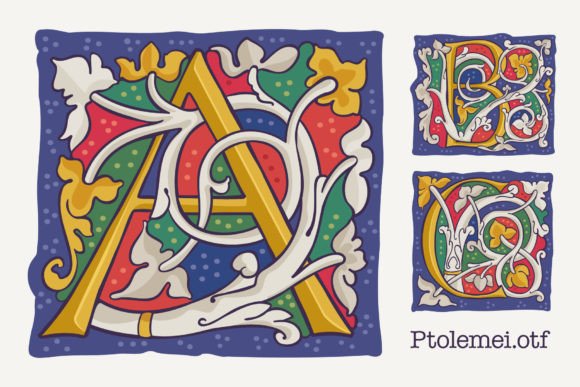
Journey into the realm of elegance and prestige with Ptolemei, a font family that echoes the grandeur of ancient times. Intricately crafted with ornate details, Ptolemei captures the essence of heritage, making it the perfect choice for your creative expressions.
Visualize your designs transformed into masterpieces, adorned with Ptolemei's classic charm. Its timeless beauty transcends the boundaries of time, adding a touch of sophistication and distinction to every project.
Unleash your creativity and let Ptolemei's intricate strokes elevate your monograms, logos, and designs to new heights. Embrace the artistry of this blackletter font and create visual wonders that leave a lasting impression.
With Ptolemei by your side, you'll discover a world of possibilities. Its versatility knows no bounds, effortlessly adapting to a myriad of design styles. Express your individuality and make a statement with Ptolemei.
Immerse yourself in the allure of Ptolemei and let this font be your guide to creating timeless works of art. Embrace its beauty, indulge in its elegance, and allow your imagination to soar to new heights.